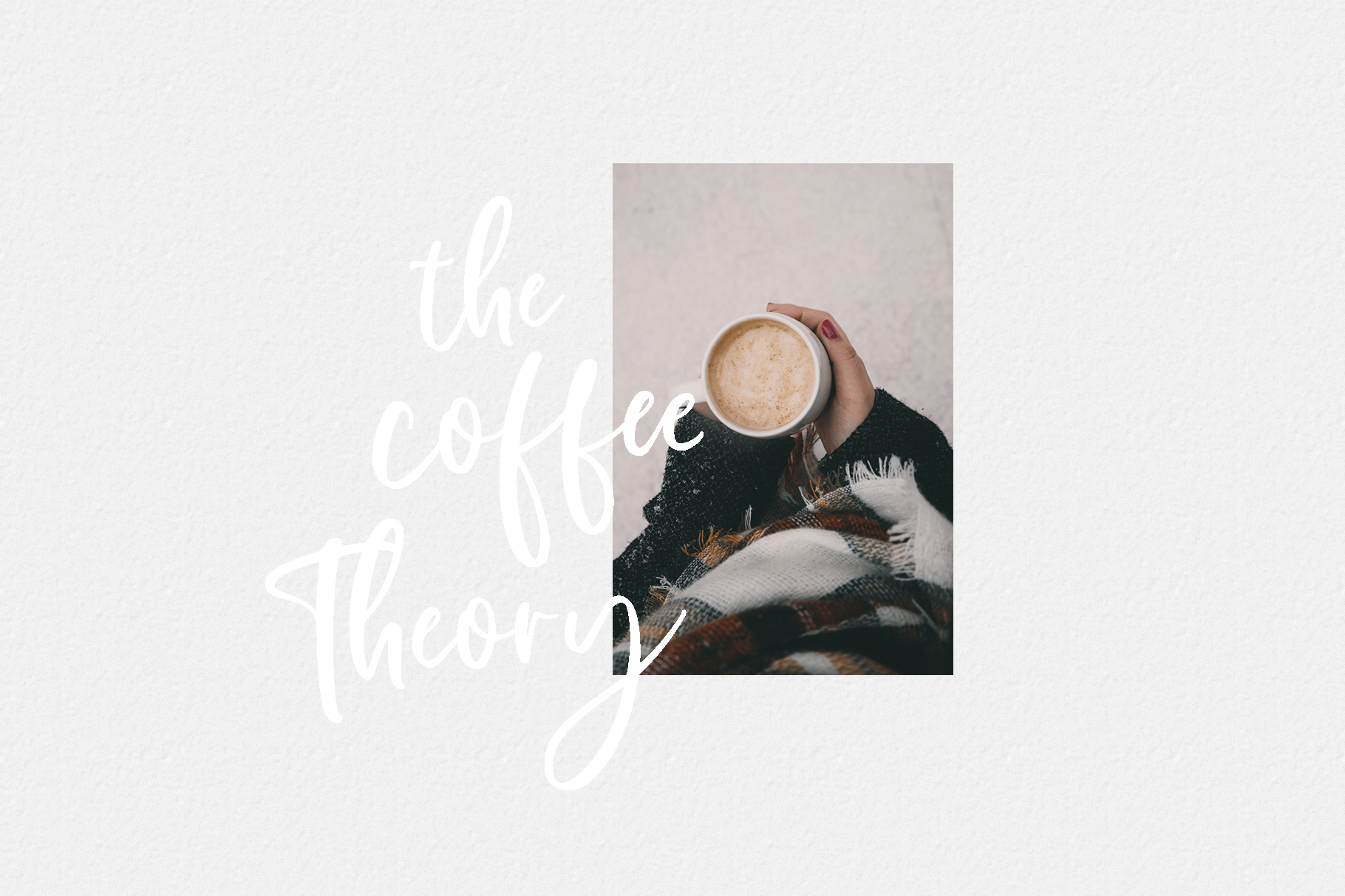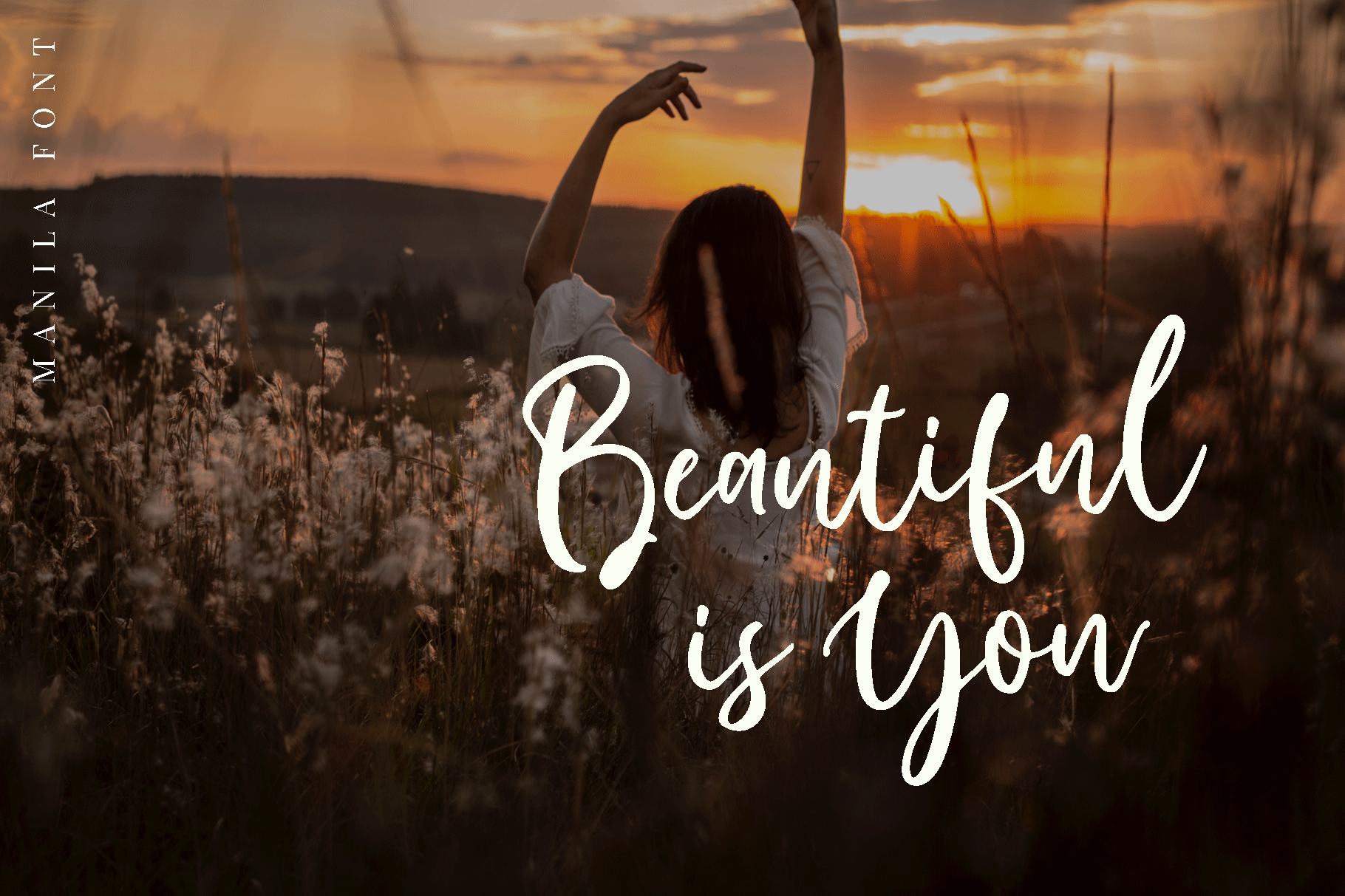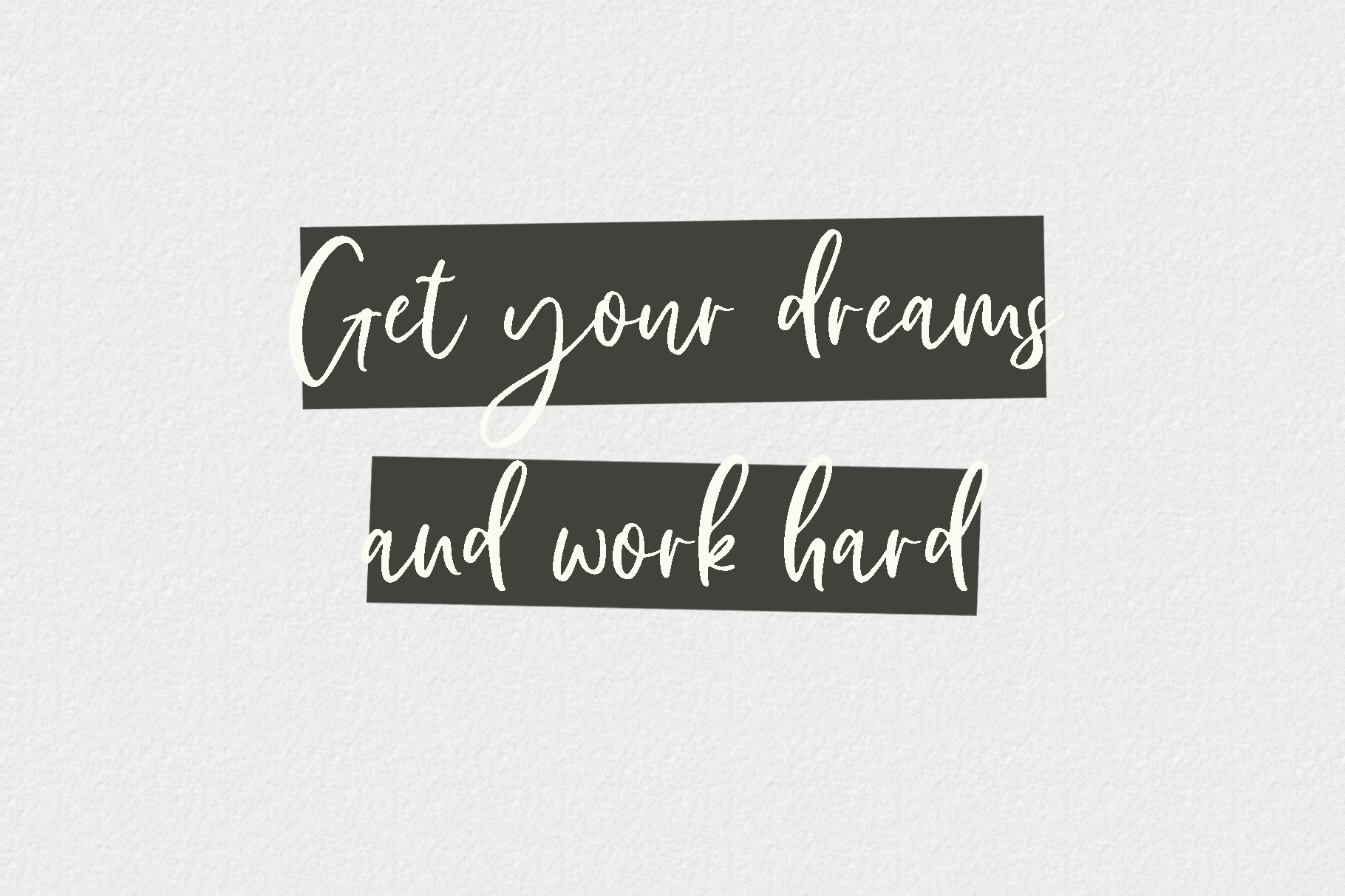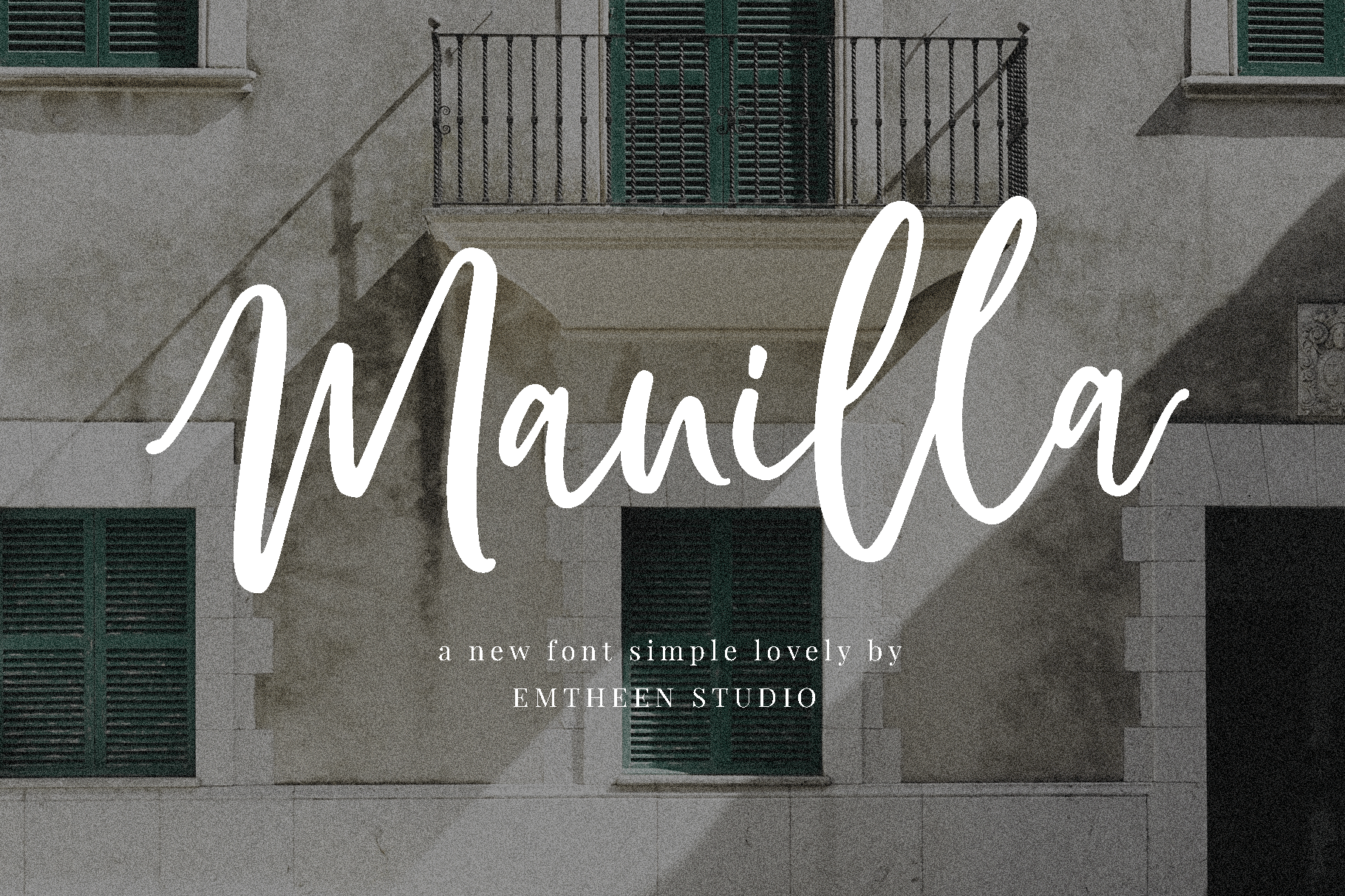
Manilla Script Font
Manilla Script Font – Free Demo
A new font simple lovely by Emtheen Std.. Presenting Manilla Font. Manilla was made with heart to elevate your work to the highest level. Manilla Script Font is a simple script-style font that is simple to fit in all media / objects. in this font there are features Uppercase, Lowercase, Number and punctuation, Multilingual language, Ligature & Alternate character. and this font has .ttf & .otf. This font will perfect for many different project ex: quotes, logo, blog header, poster, banding, fashion, apparel, letter, invitation, stationery, etc…